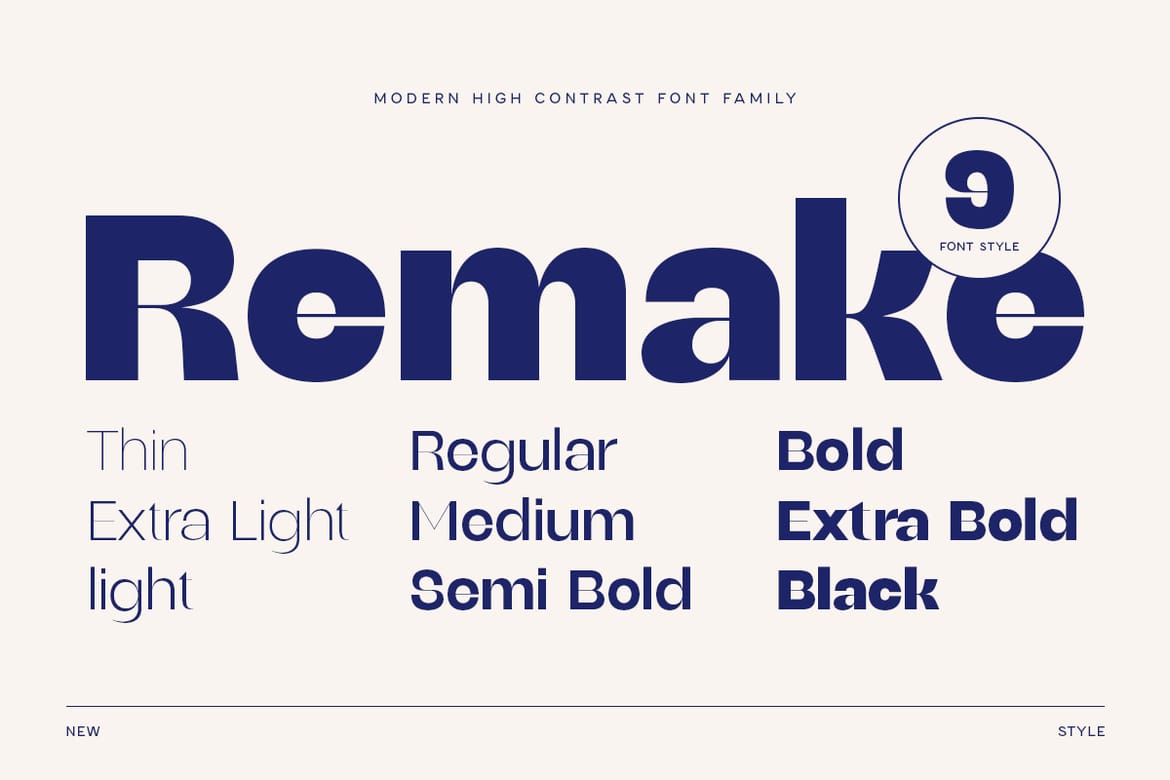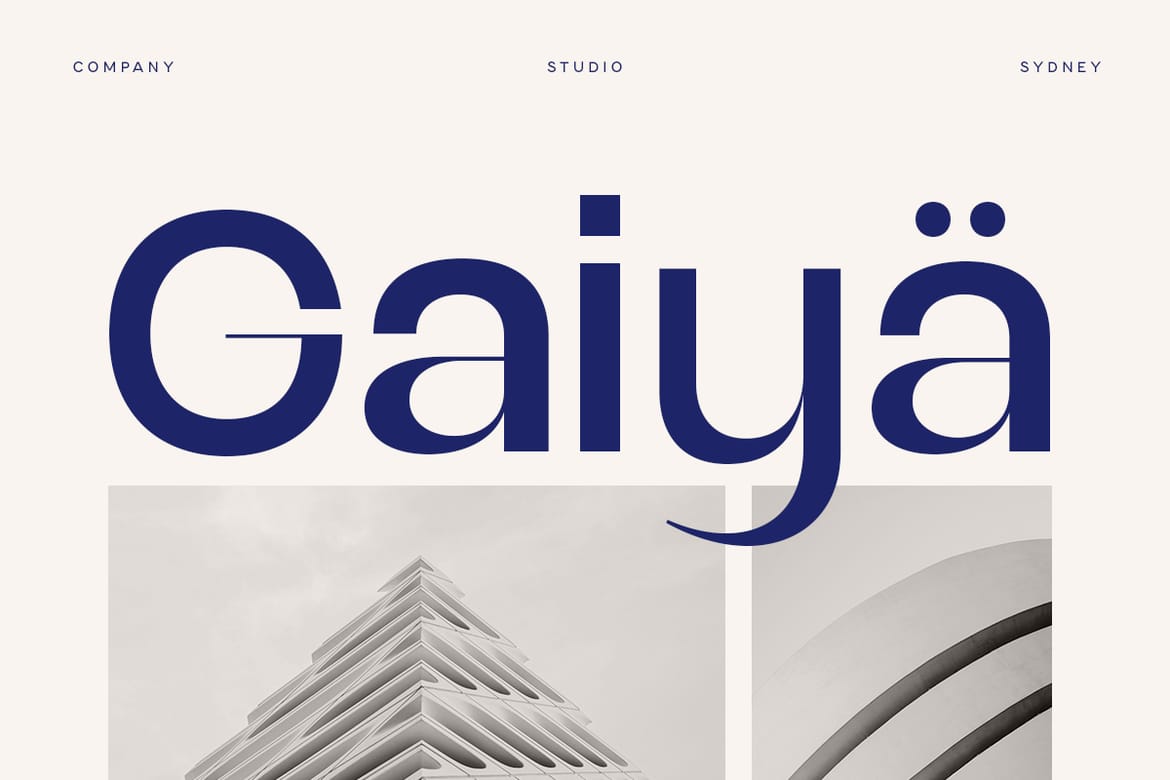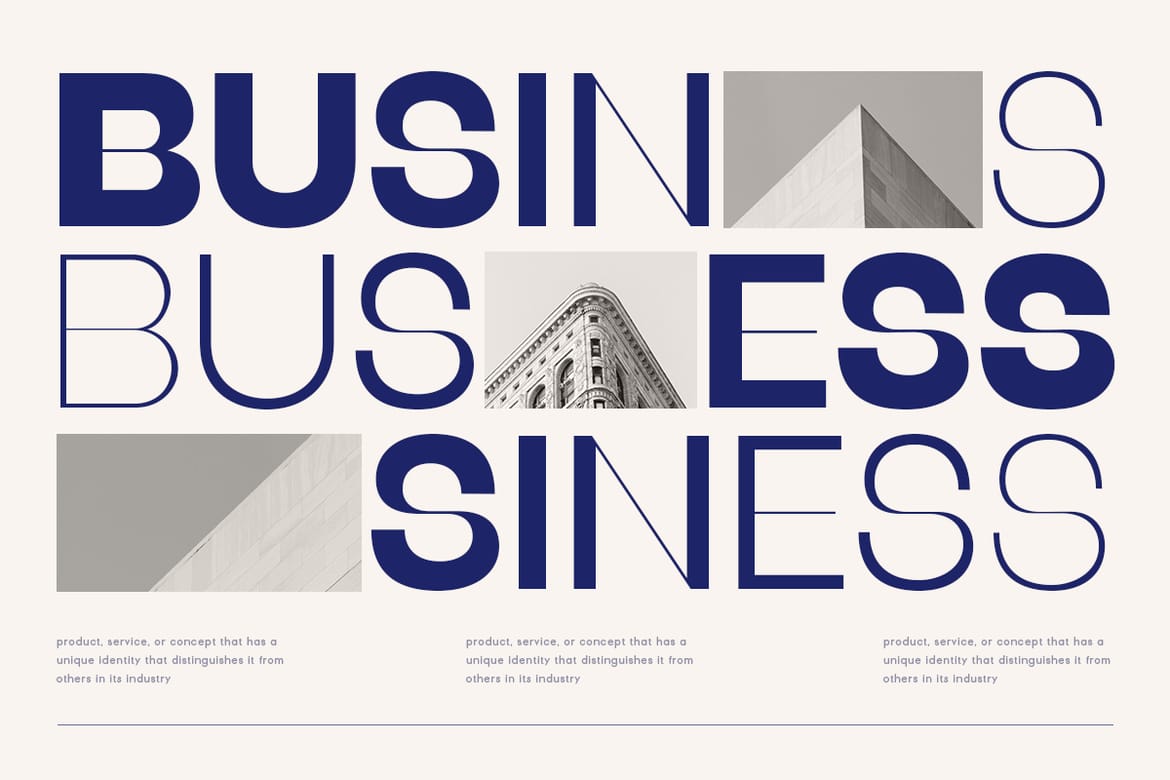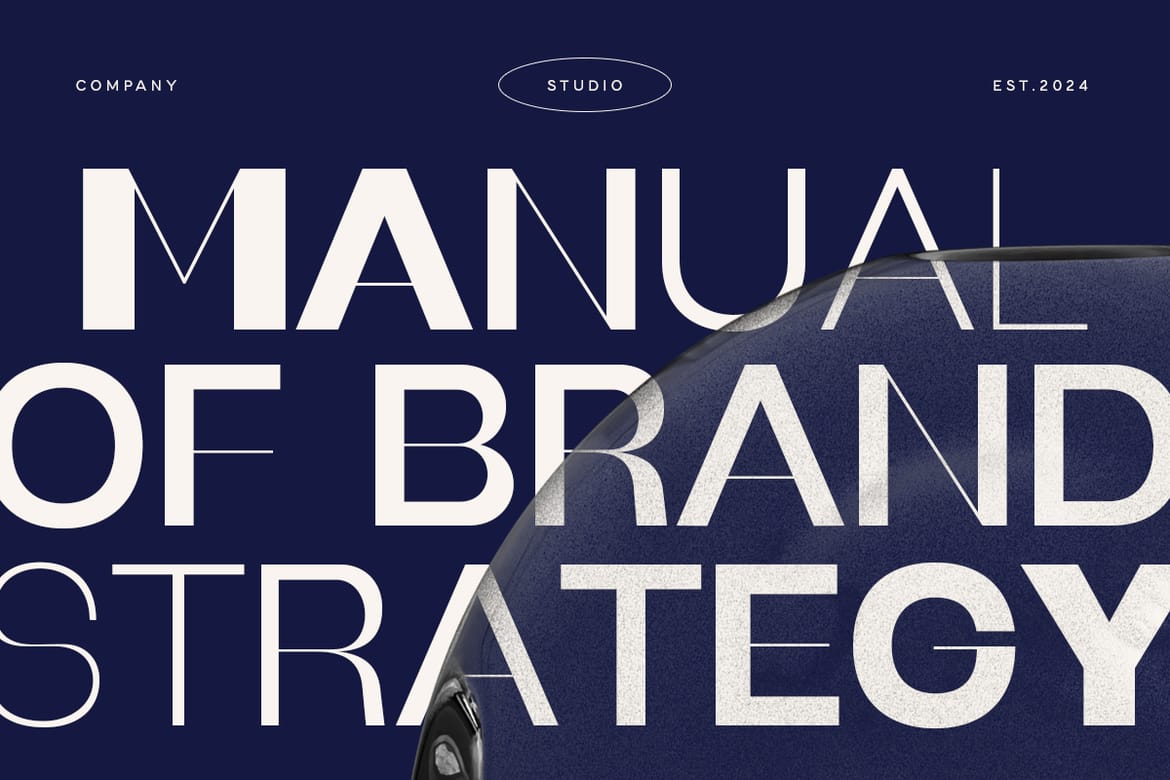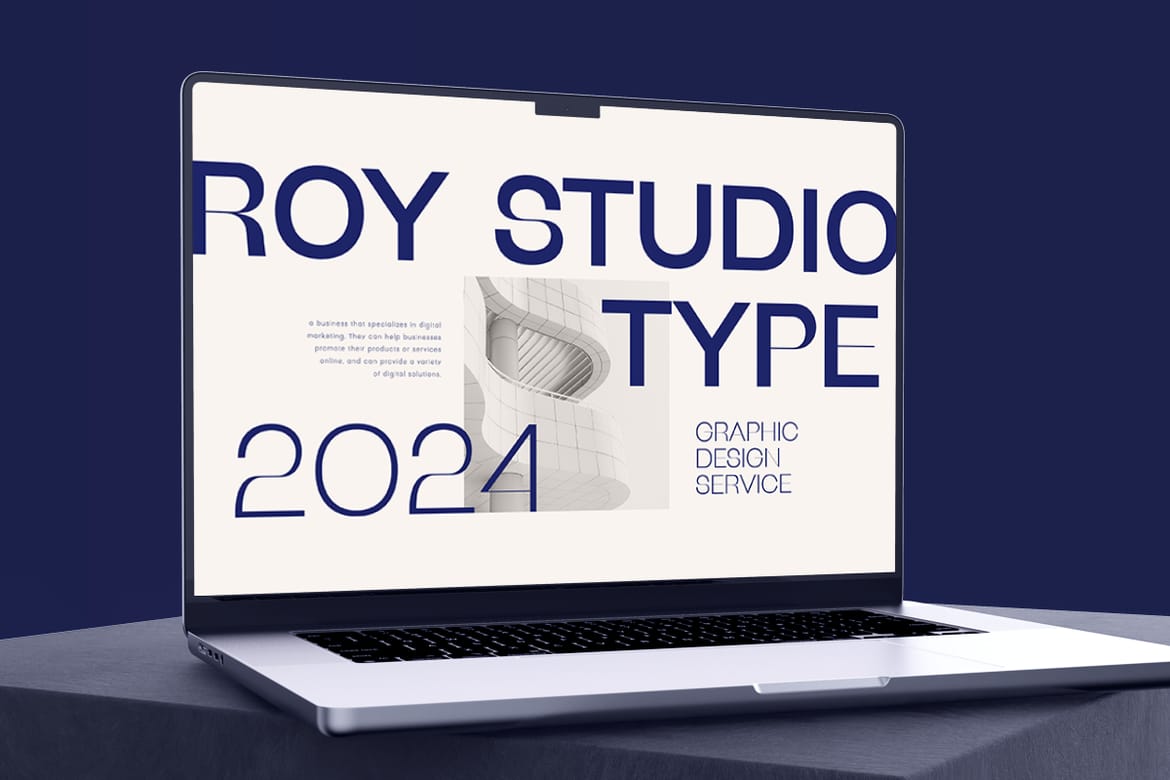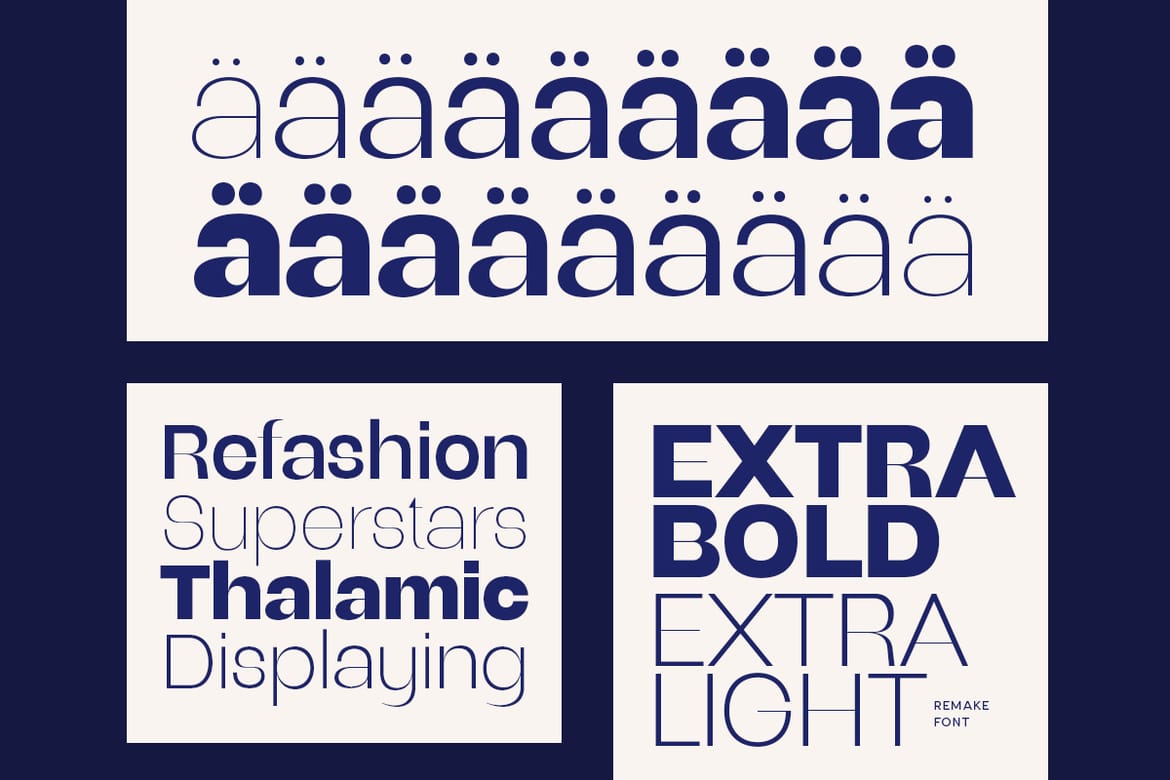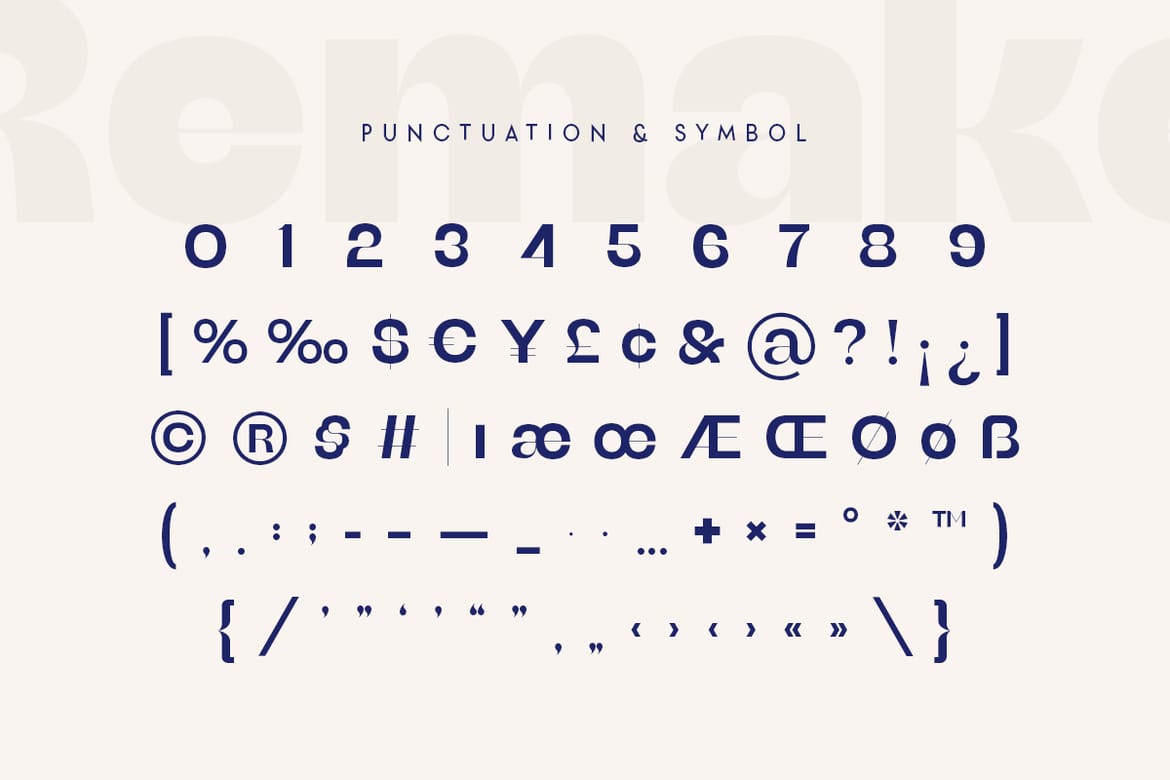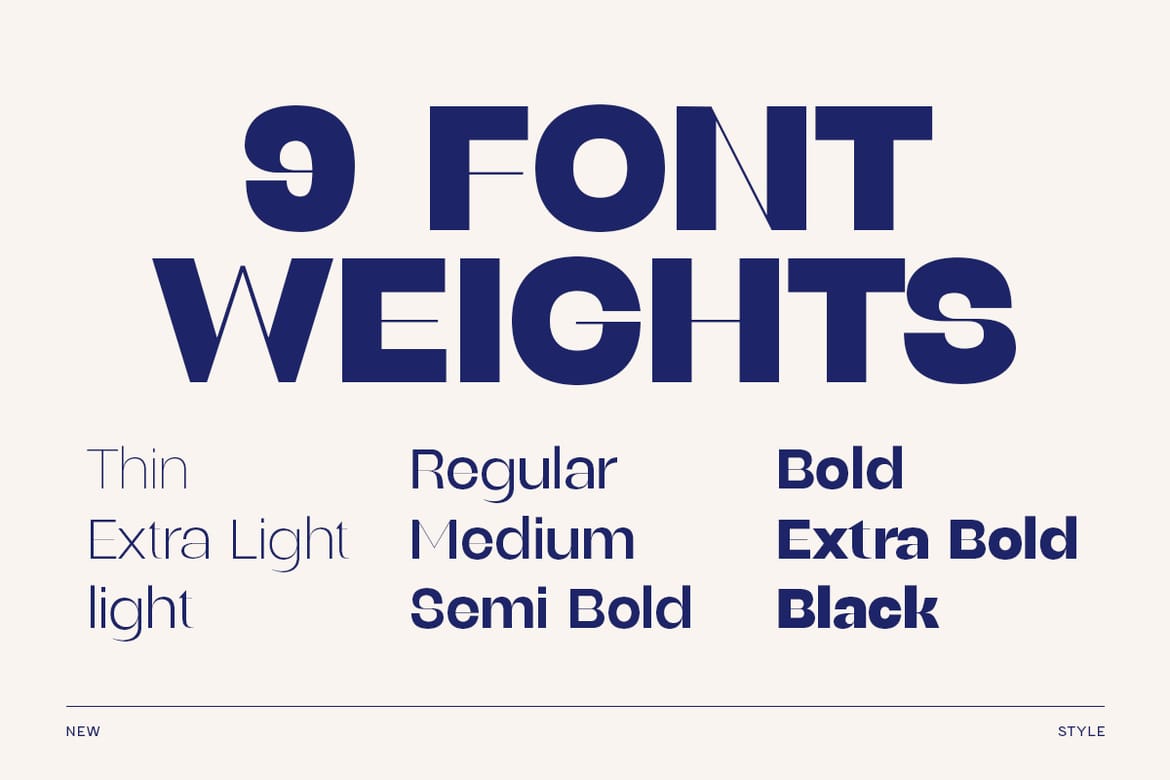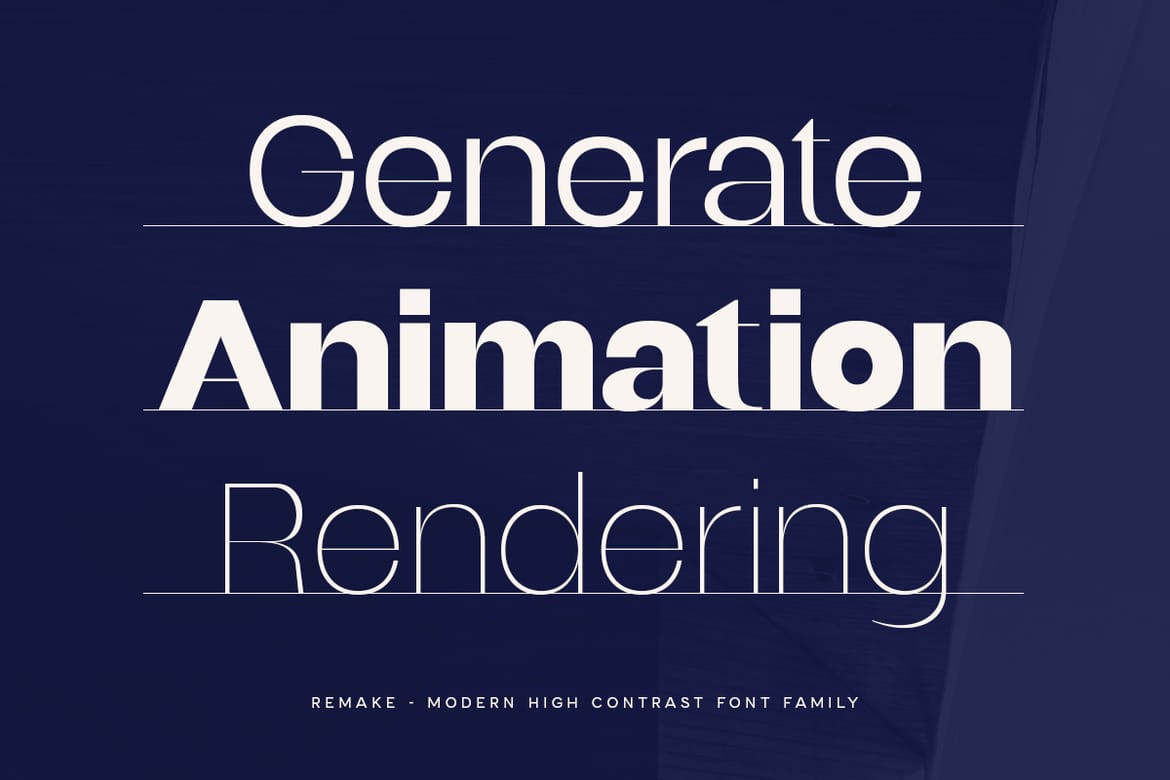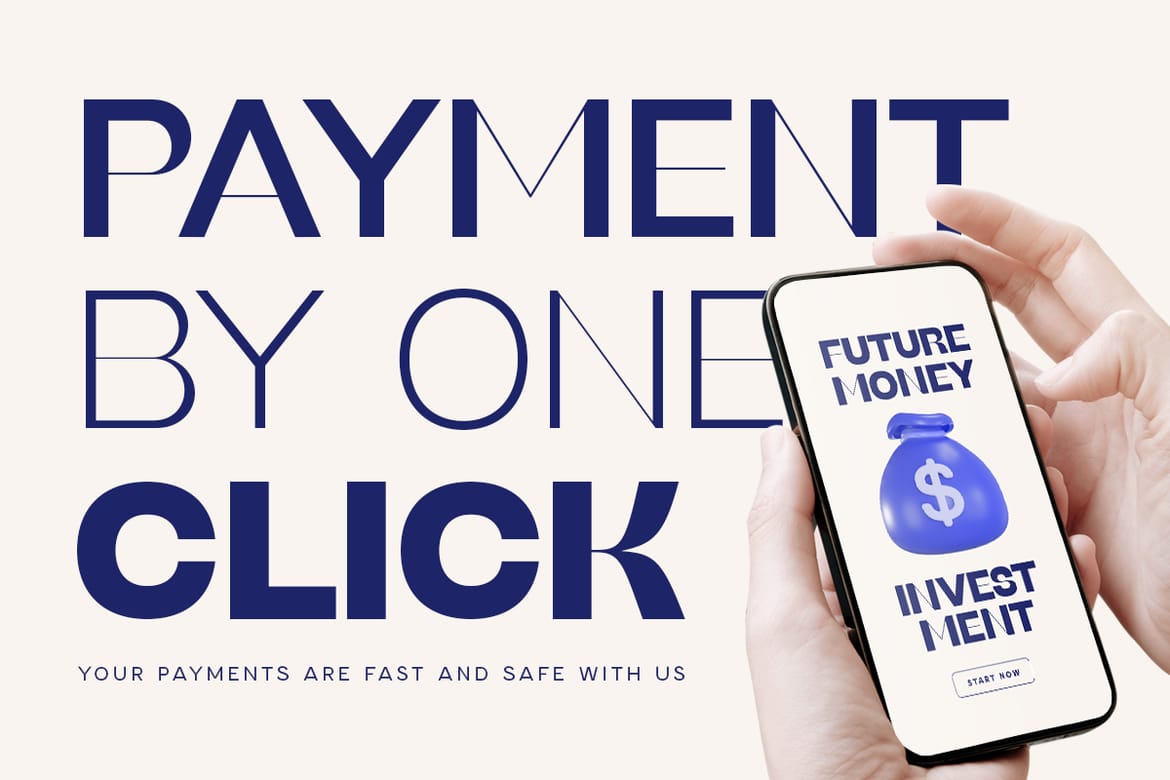
Remake is a Modern High-Contrast Font Family that we created special for elegant, luxury, modern, branding needs, font that you can combine to get any variations and unique shapes easily just in seconds with choose alternates of them. It is a sans serif display font with moderate contrast that perfect for branding projects, logo, social media posts, advertisements, product packaging, product designs, label, photography, watermark, invitation, stationery, and any projects, it makes with a high level of legibility.
Remake is also included full set of:
Uppercase and Lowercase Letters
9 Weights
Multilingual Characters
Numerals & Punctuation
- 9-weight high-contrast font family
- Multilingual characters included